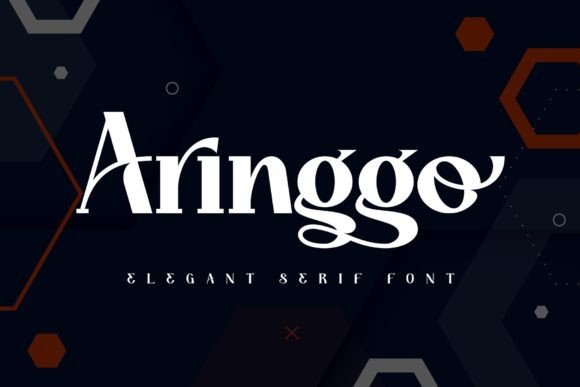
**Aringgo: A Symphony of Serif Sophistication**
In the realm of digital artistry, where words take flight and designs blossom, Aringgo emerges as a serif masterpiece, a font woven with grace and elegance. Its meticulously crafted curves, sharp serifs, and balanced proportions evoke a sense of timeless sophistication, inviting you to elevate your creative expressions to new heights.
With Aringgo, experience the allure of luxury branding, where logos and trademarks exude an air of exclusivity and prestige. Craft editorial designs that captivate readers with their refined elegance, or create magazine layouts that transport them to a world of style and sophistication. Unleash your creativity in packaging designs, where Aringgo's presence adds a touch of allure to every product.
Imagine movie posters that come alive with Aringgo's cinematic charm, drawing audiences into a world of drama and intrigue. Design captivating posters that announce upcoming exhibitions, allowing the beauty of Aringgo to complement the artworks they promote. Step into the realm of fashion, where Aringgo dances gracefully across promotional materials, adding a touch of chic to every ensemble.
Explore the world of cosmetic branding, where Aringgo lends its timeless elegance to logos and packaging, creating a sense of luxury and indulgence. Allow Aringgo to guide you in art gallery branding, where its presence adds a touch of sophistication to every exhibition. With Aringgo, you hold the key to unlocking a world of creative possibilities, where your designs transcend the ordinary and embrace the extraordinary.
**A Font for Every Occasion, a Touch of Grace for Every Design**
Aringgo's versatility is as boundless as your imagination. Its carefully crafted glyphs and swashes, easily accessible through PUA encoding, empower you to add intricate details and playful flourishes to your designs. Whether you seek a touch of whimsy or a dash of drama, Aringgo's diverse character set caters to your every creative whim.
Unleash your inner artist and let Aringgo guide you through a journey of creative exploration. Discover the joy of crafting logos that radiate sophistication, or create social media posts that captivate audiences with their elegance. Design wedding invitations that exude romance and grace, or let Aringgo add a touch of charm to your personal stationery.
Dive into the world of Cricut vinyl and unleash your creativity. With Aringgo's crisp lines and graceful curves, your designs will come to life with a new level of precision and beauty. Transform your ideas into stunning decals, wall art, and personalized gifts that will leave a lasting impression.